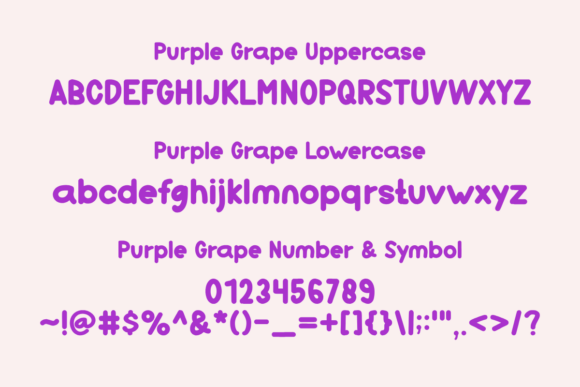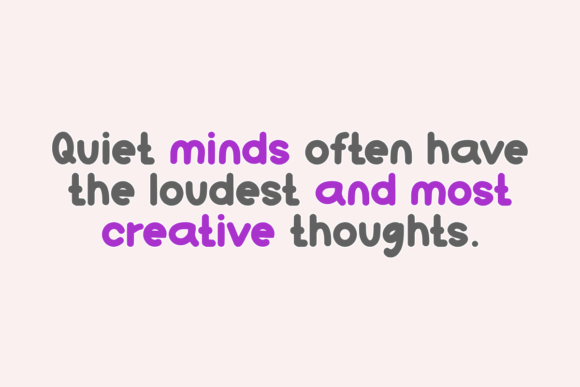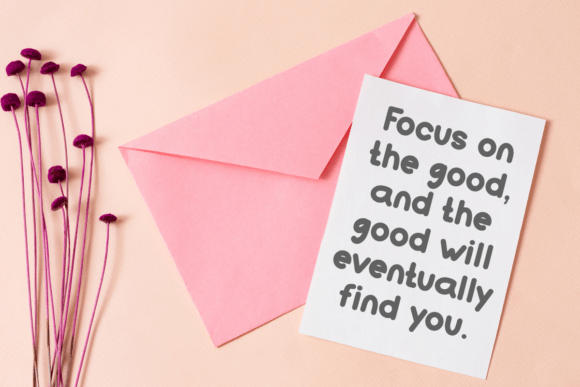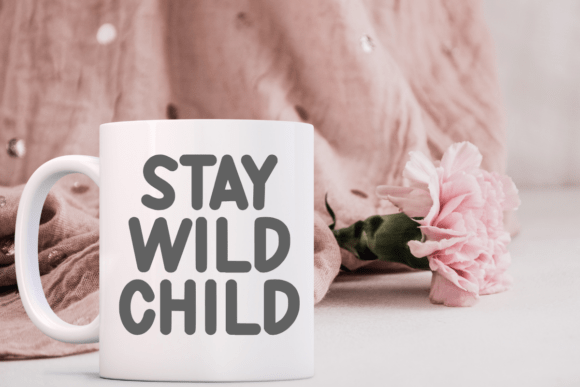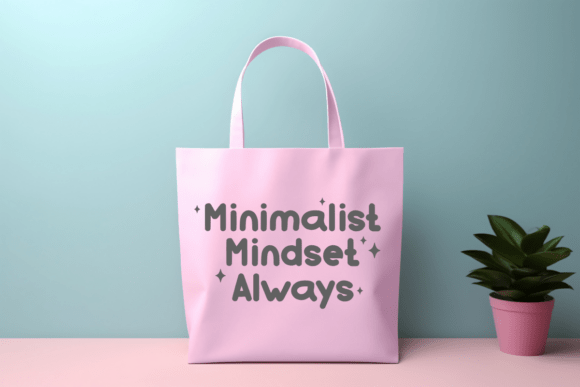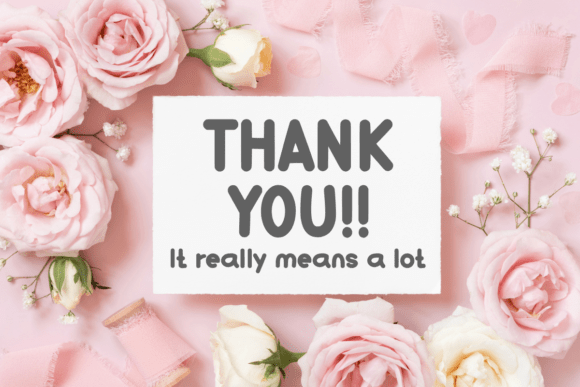
Introduction to Purple Grape Font Font
Fonts play a crucial role in design, and the Purple Grape Font font is a typeface that brings both character and versatility to any project. Whether you’re working on a branding project, a website, or a print design, the Purple Grape Font font offers a unique style that can elevate your work.
Purple Grape is a playful hanwriting font.
This font is perfect for cricut projects, logos, shirts, svg files, planners, stickers, quotes, social media and more .
Key Features of Purple Grape Font Font
Why Choose Purple Grape Font Font?
The Purple Grape Font font is more than just a typeface – it’s a design tool that helps you communicate your message with style and clarity. Its unique character set and versatile design make it suitable for a wide range of applications, from elegant invitations to bold headlines.
With its carefully crafted letterforms and balanced proportions, the Purple Grape Font font ensures readability and visual appeal across all mediums.
What makes Purple Grape Font font special?
The Purple Grape Font font stands out with its unique design, exceptional readability, and versatility across various design applications.